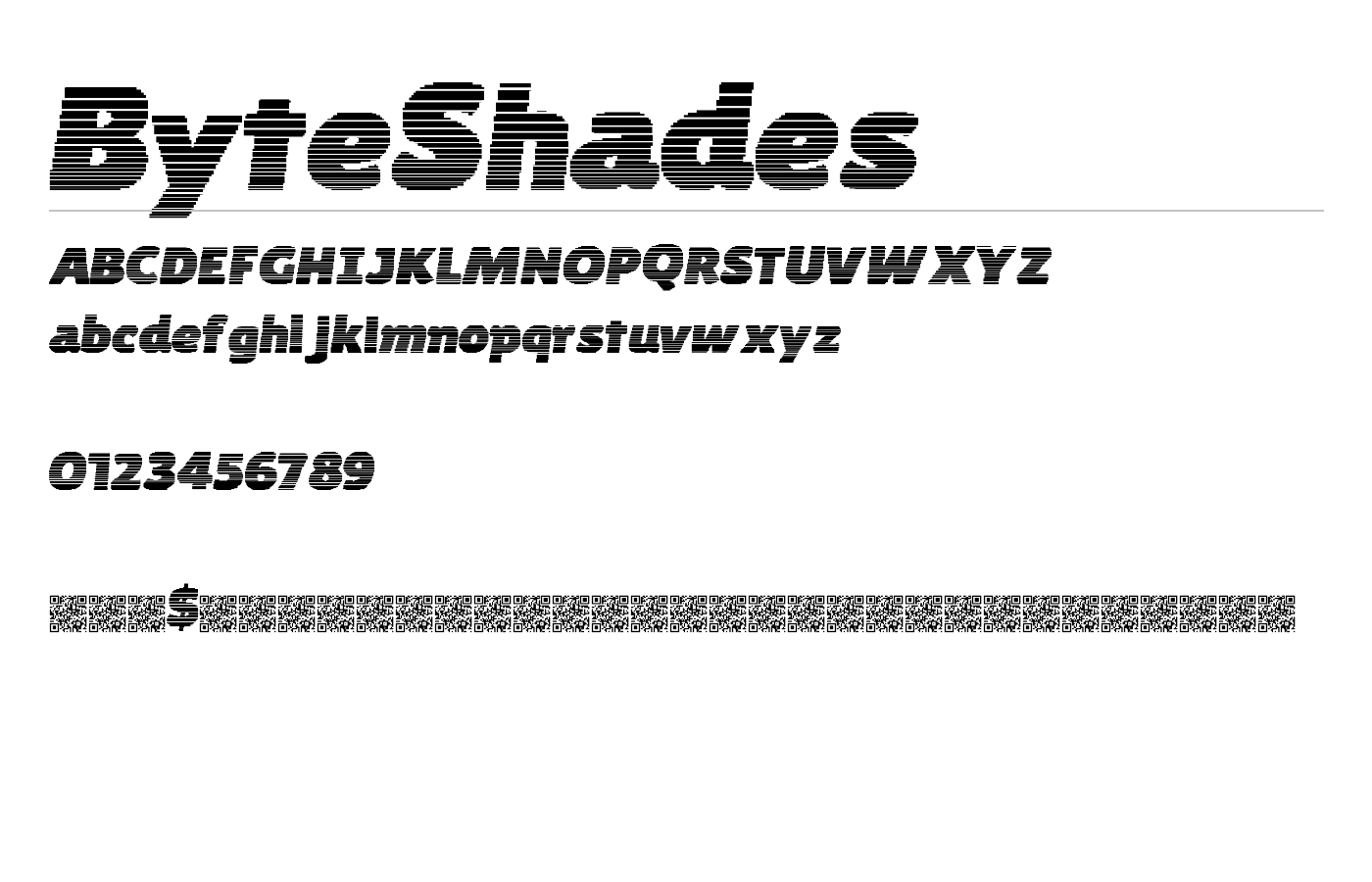
ByteShades is a bold, geometric sans serif font characterized by its unique horizontal shaded lines that create a dynamic, digital-inspired texture. Its italicized style and condensed forms give it an energetic and modern feel, perfect for tech branding, futuristic headlines, and eye-catching posters where a sense of movement and innovation is desired. This font stands out with its playful yet strong personality, making it ideal for projects seeking a contemporary and distinctive look.
ByteShades Font
About ByteShades Font